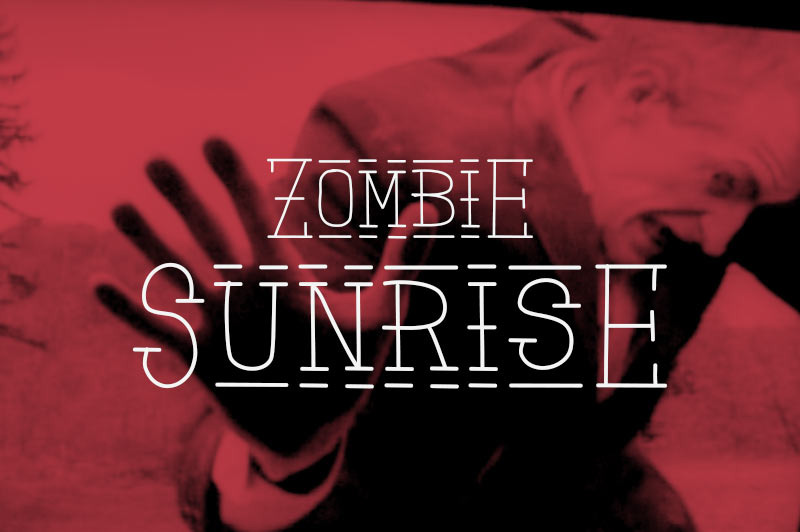
Zombie Sunrise font + patterns
Zombie Sunrise is a hand drawn font taking inspiration from the 60's horror zombie movies. When you buy this font you receive for free 6 exclusive patterns that you can use directly in Photoshop or any other graphic software.